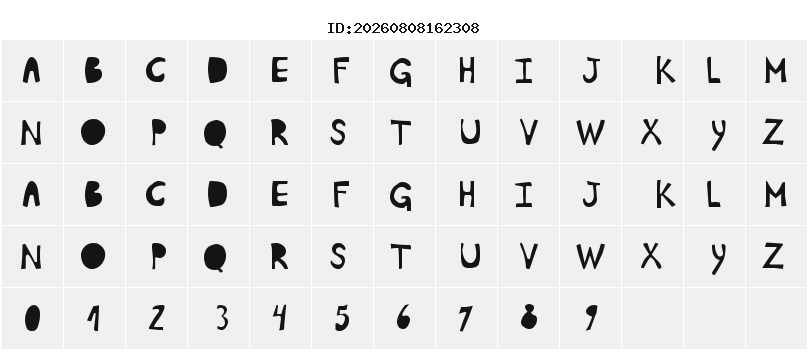
• Font Name: Plumon
• Font ID: letra 1:Version 1.00
• Full Font Name: Plumon
• Version: Version 1.00 October 28, 2007, initial release
• PostScript Name: Plumon
About Plumon.ttf
Plumon.ttf is a modern, elegant sans-serif font designed for ultimate readability and visual harmony. Perfect for branding, headlines, web design, and print materials.